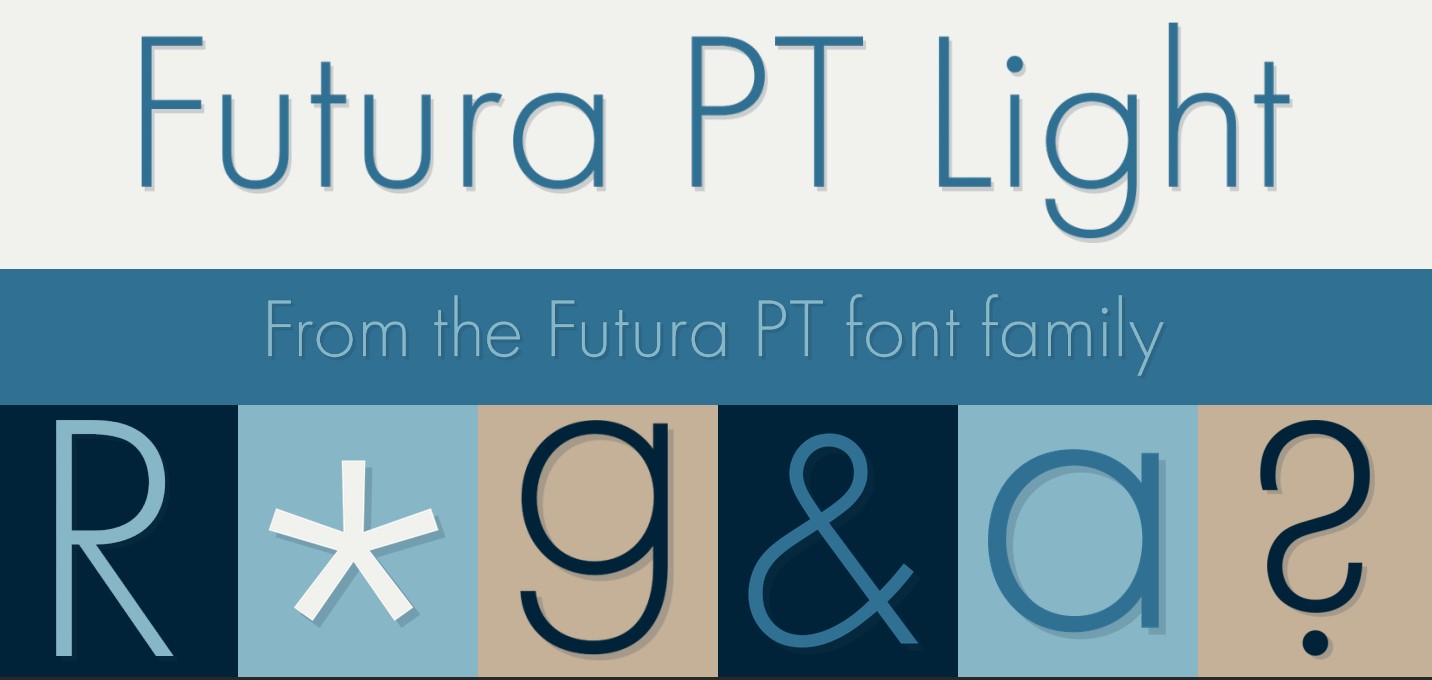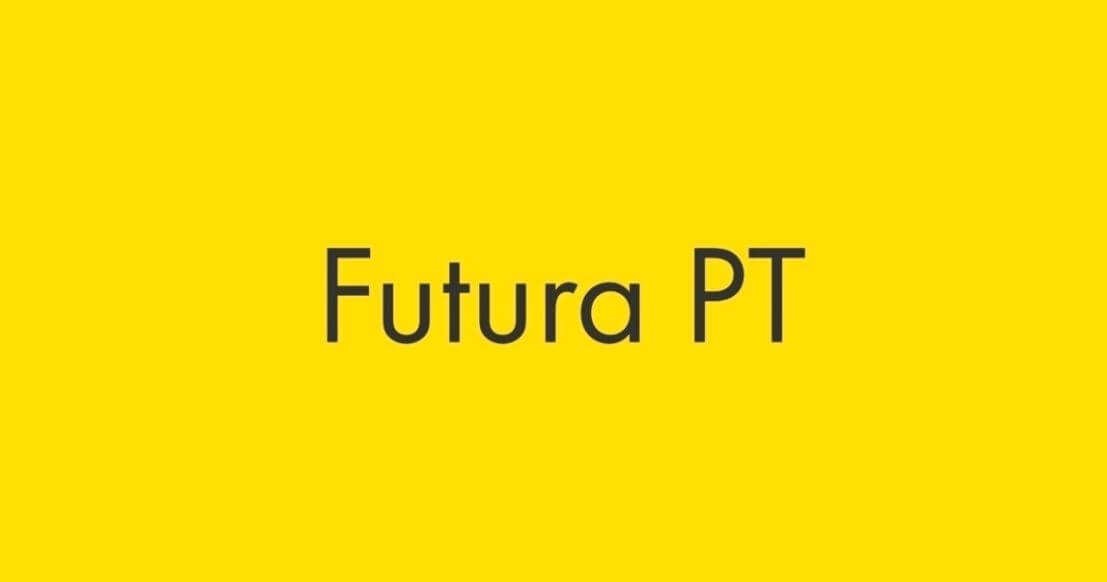
Futura PT Font
Futura PT Font is known for its bold and italic function. This typeface is also present inside the google fonts. That’s best for headlines and special net web page fixtures in that you need to seize attention. A smart direction of movement for all designers is to test sild handwritten font.
And modern typefaces, as the ones are normally available for industrial corporation use. It is even for startups with restricted budgets. A whole lot of thunderstorm font fonts need an excessive amount of work cleaning up the elements, but, that doesn’t propose you can discover top options, he says for an identity assignment. Futura PT Font Free The circle of relatives encompasses normal, formidable, italic and ambitious italic styles.
It pursuits to provide readers with an immoderate degree of visual consolation. It’s available in one of a kind weights. Even as concerned with a branding project, the concerned task is to choose the extraordinary logo fonts viable to acquire a tremendous give up result. Additionally known as Demi font.